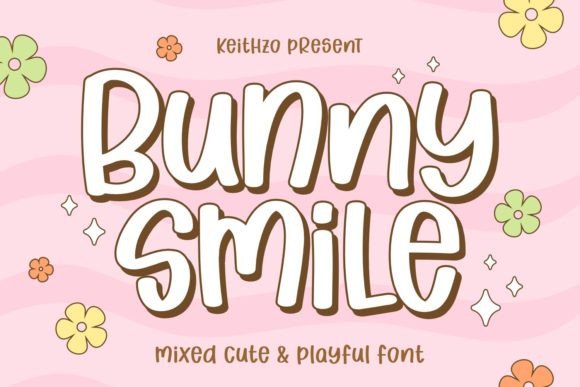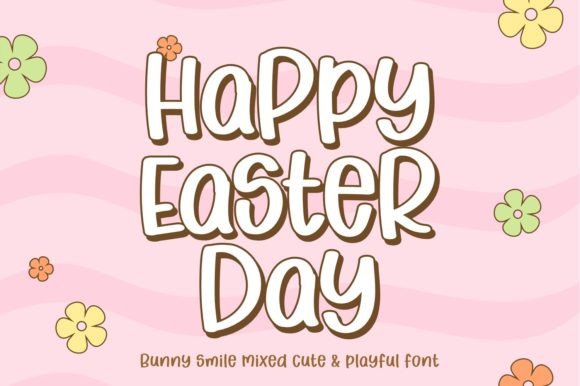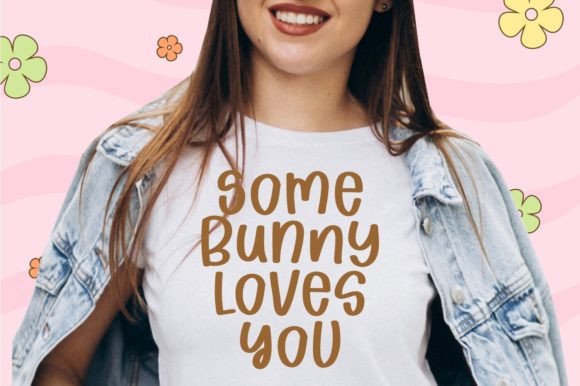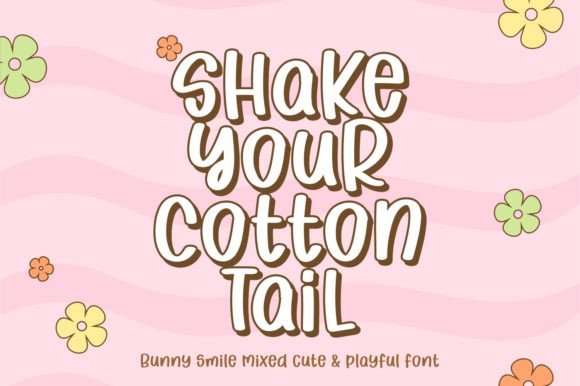
Bunny Smile Font: A Cute Display Font for Playful DIY & Cricut Projects!
About the Bunny Smile Font
Add a touch of class to your work with the Bunny Smile Font, a truly exceptional typeface. Bunny Smile is a cute display font that radiates charm and sweetness. Its endearing letterforms, adorned with playful details, create a delightful and whimsical aesthetic. Ideal for projects seeking a touch of cuteness and friendliness, Bunny Smile adds a heartwarming and lovable quality to your creative expressions.
Bunny Smile excels in headlines, logos for children’s products, and short, impactful social media graphics. Its whimsical nature makes it perfect for branding projects targeting a young, playful audience, such as confectionery or toy companies. Avoid using it for body text or lengthy content; its decorative elements can become distracting and hinder readability.
Pairing Bunny Smile with a clean sans-serif like Open Sans for body text creates a balanced contrast of playful and professional. Alternatively, a classic serif font such as Garamond can add a touch of sophistication, grounding the font’s sweetness. For a more modern feel, consider pairing it with a geometric sans-serif like Montserrat.
The font’s overall personality is undeniably cheerful and friendly, radiating a sense of approachability and warmth. It is best suited for projects needing a lighthearted and endearing feel, avoiding contexts requiring seriousness or formality.
Bunny Smile Font Usage Examples
Bunny Smile Font Example